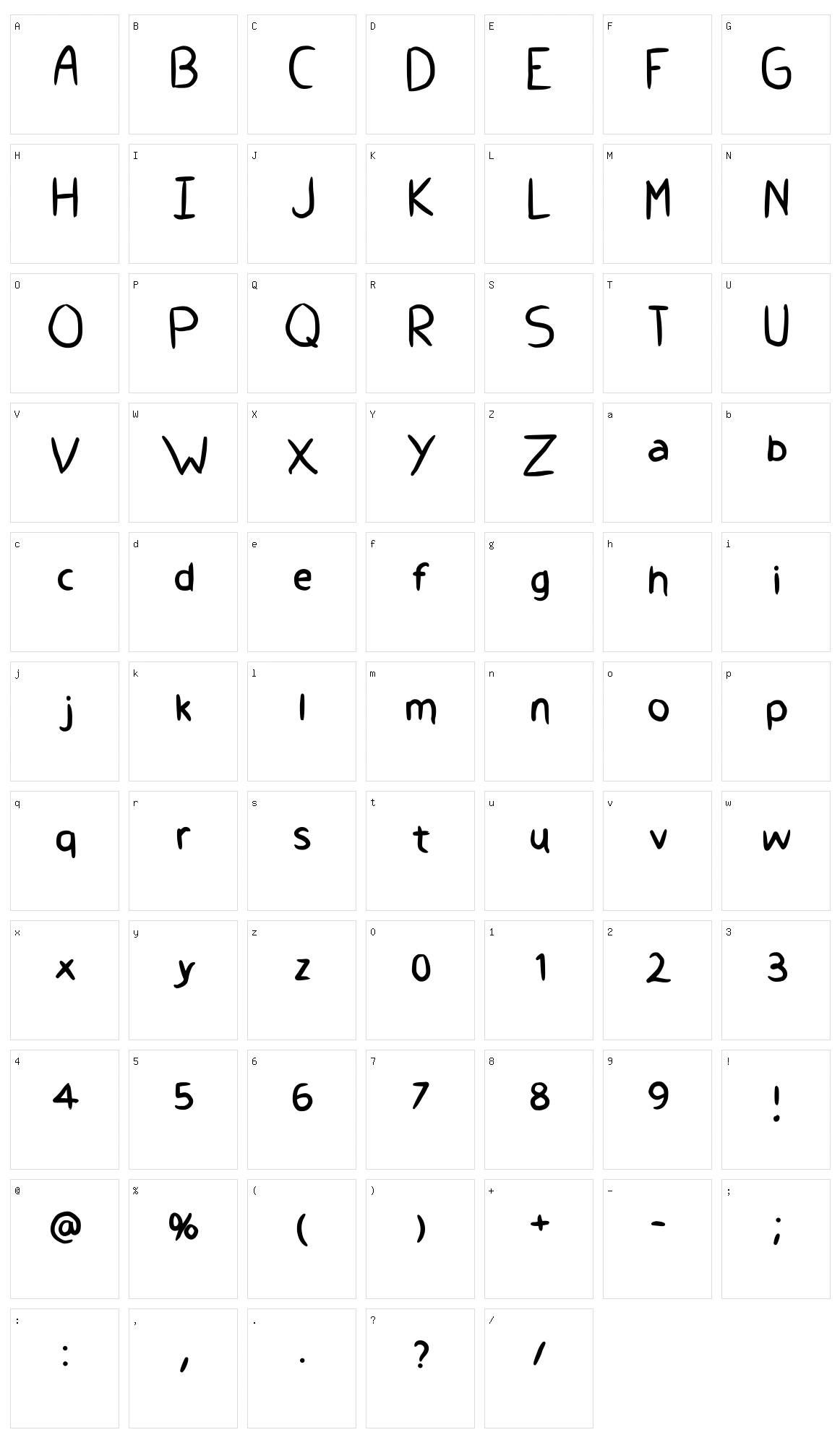
The free font Give Me A Hand is carefully designed by Overtink, showcasing a thoughtful balance of creativity and usability and falls under the Script font style. When you download the ZIP file, it contains only 10.56 KB of font files, making it lightweight and quick to download. Please review the license details below to understand permitted usage and distribution rights. If license information is not available, we recommend using this font for personal projects only or contacting the author directly for commercial usage permissions.